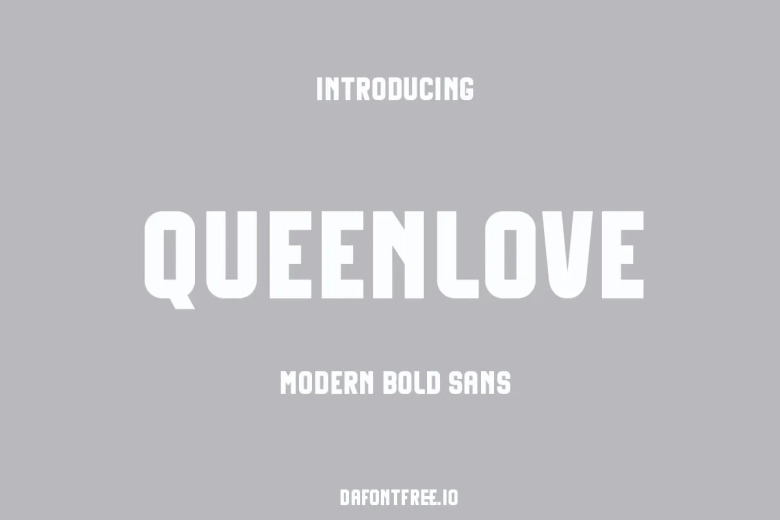
Queenlove Font
Queenlove is available as a modern and bold sans seriffont. It’s a work of art in its well-defined and perfectly balanced characters. Fall in love with its extremely adaptable style and exploit it for any design you can think of!
together with: branding initiatives, brand design, garb branding, packaging layout and tons extra!. Add it on your creative ideas and notice how correctly.
Queenlove Sans Serif Font